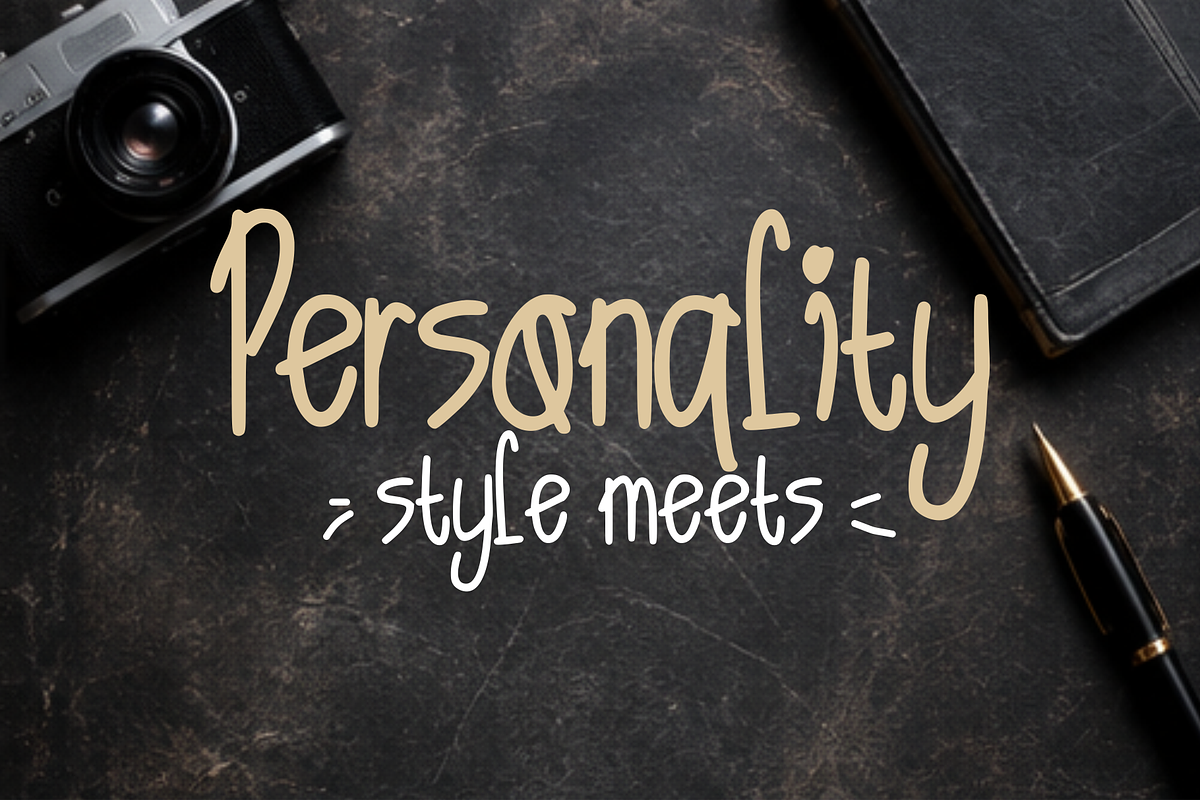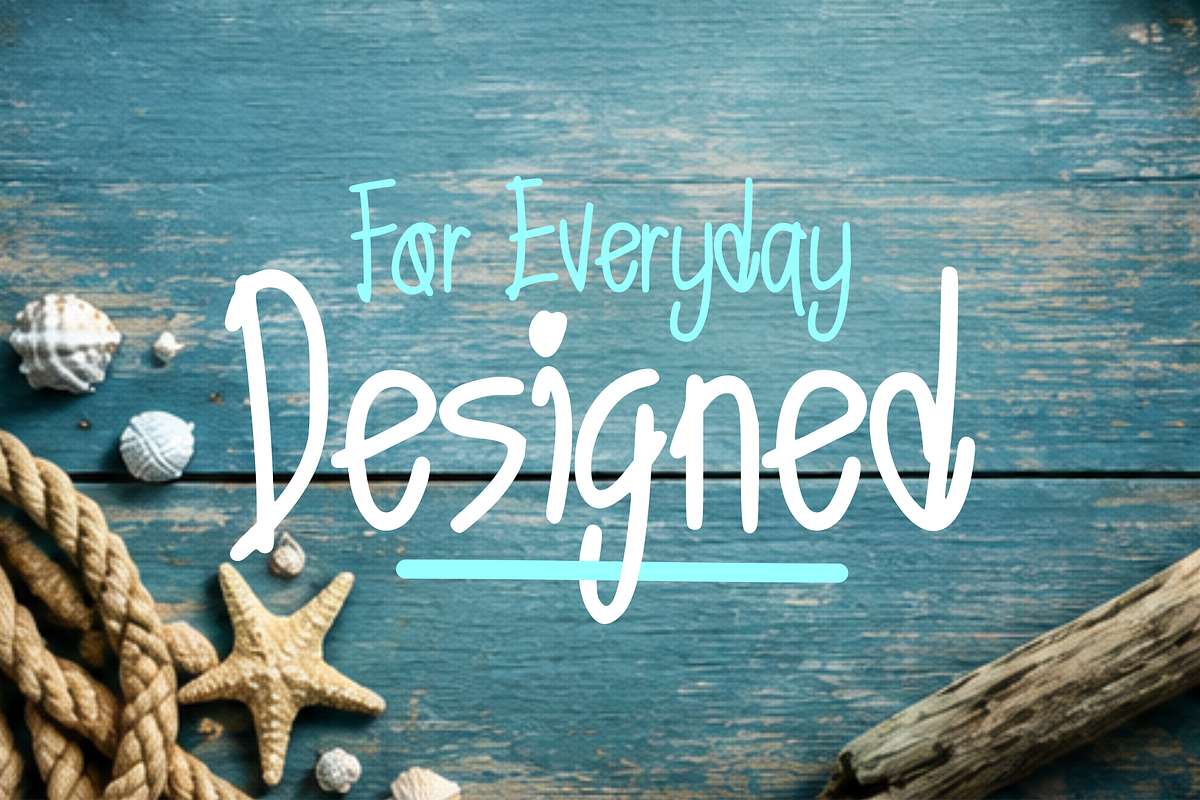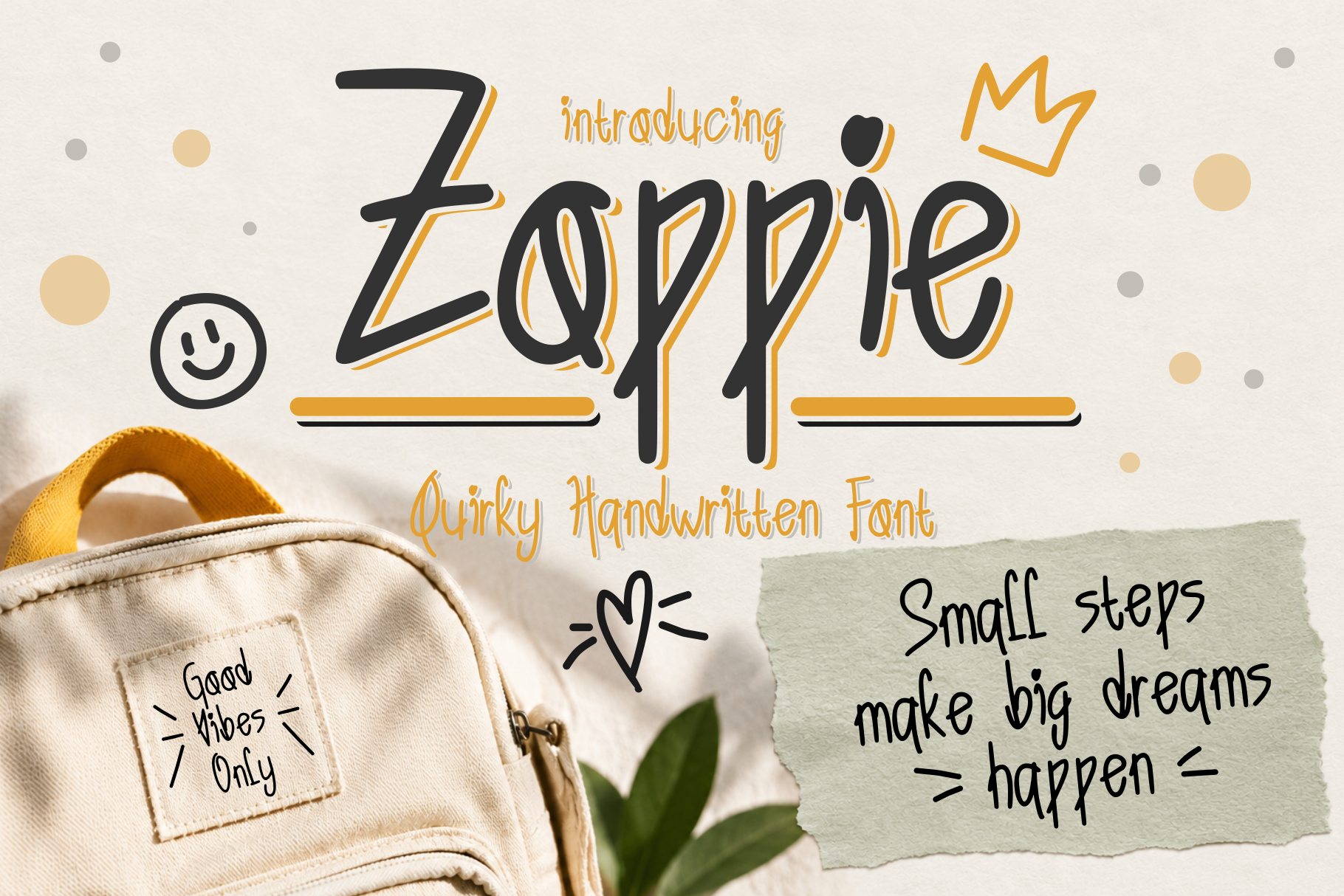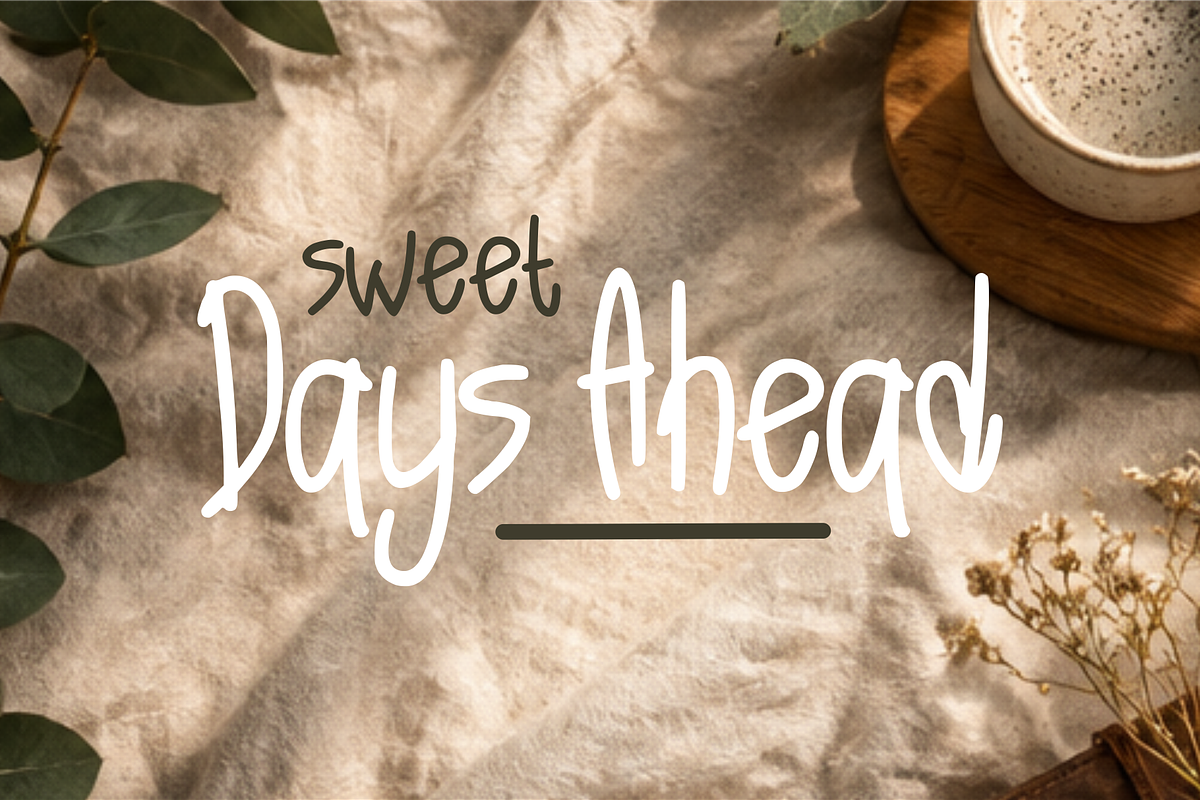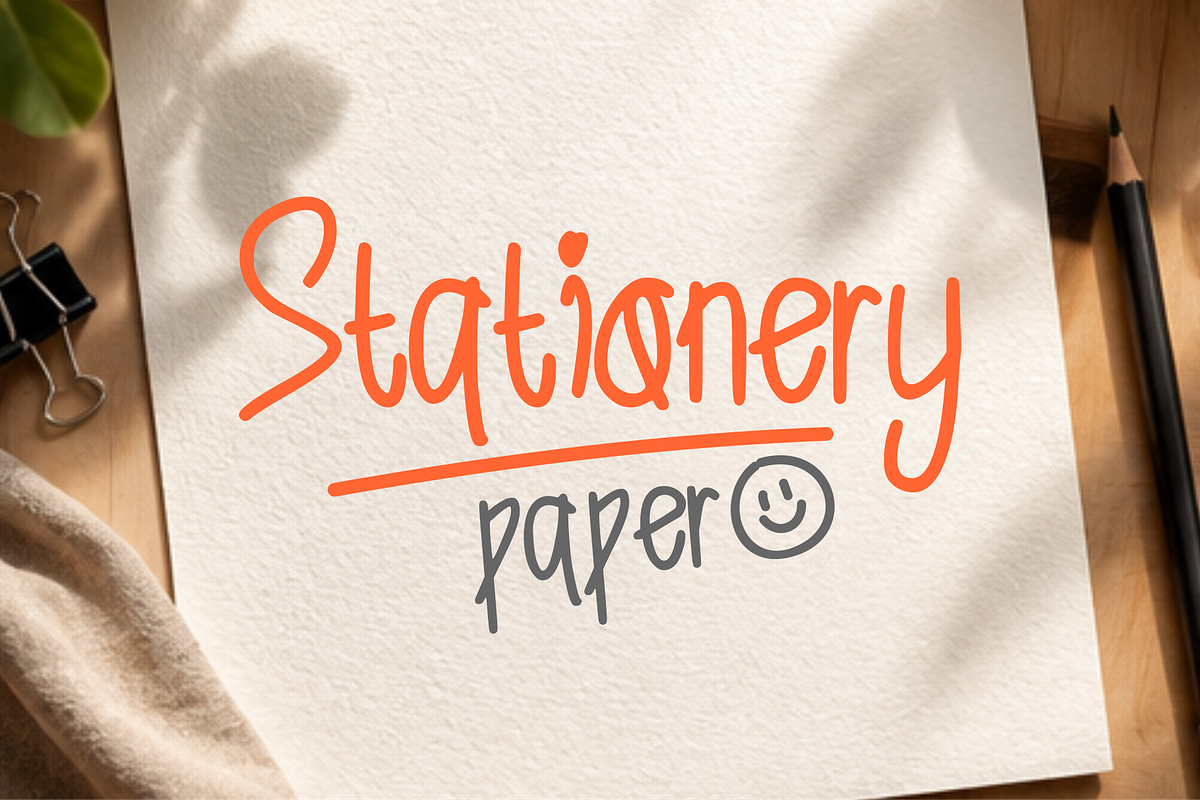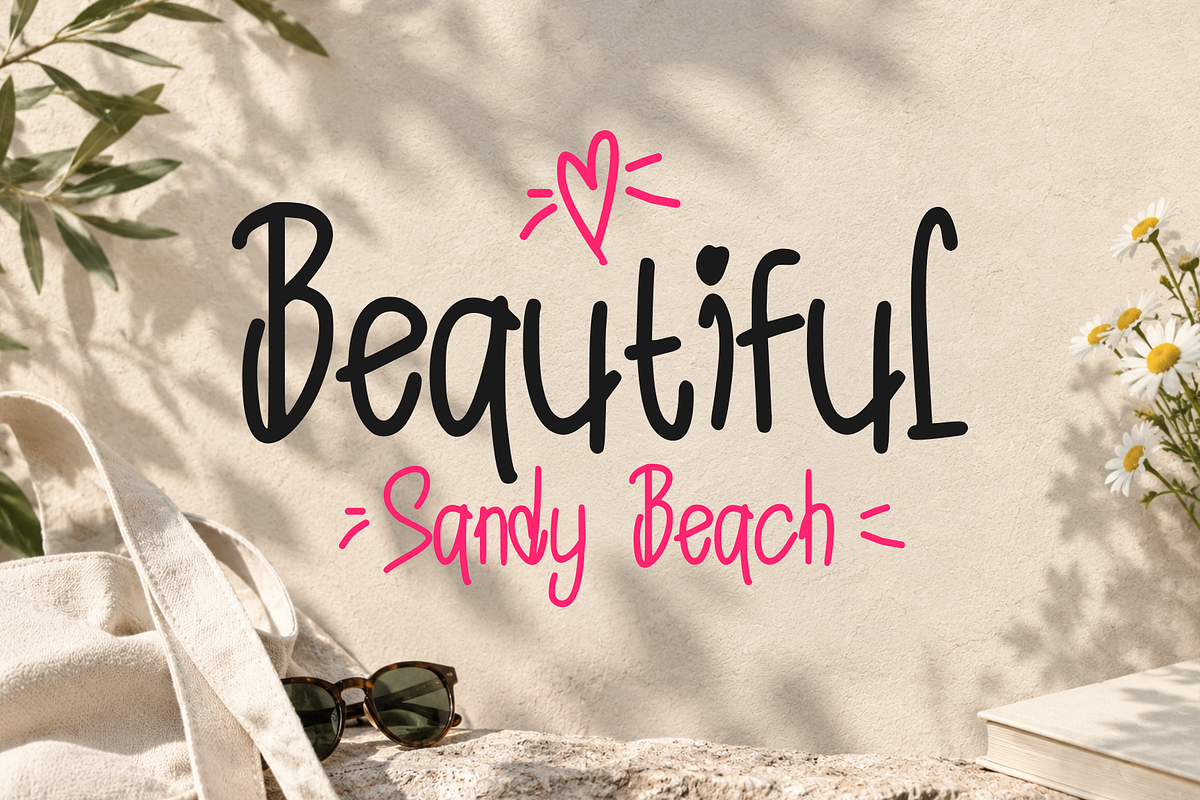
Zoppie – Quirky Handwritten Font
Zoppie is a playful and expressive handwritten display font designed to bring a fun, youthful, and spontaneous personality to your creative projects. With its quirky letterforms, organic strokes, and charming hand-drawn character, Zoppie adds a cheerful and personal touch to every design.
Perfect for projects that need a friendly and creative atmosphere, Zoppie works beautifully for children’s products, school projects, posters, greeting cards, stickers, packaging, social media graphics, branding, invitations, apparel, and lifestyle designs.
Its imperfect, natural handwriting style gives your typography an authentic handmade feel while maintaining strong visual personality and readability. Zoppie is made for designers who want their work to feel fun, warm, casual, creative, and full of character.